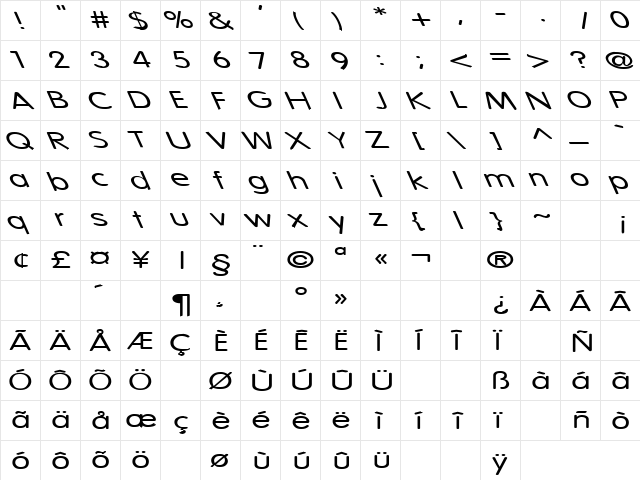
Lemons 13 Regular
Lemons 13 offers clean, dependable letterforms without strong stylistic allegiance, making it a practical choice for designers who need flexibility.